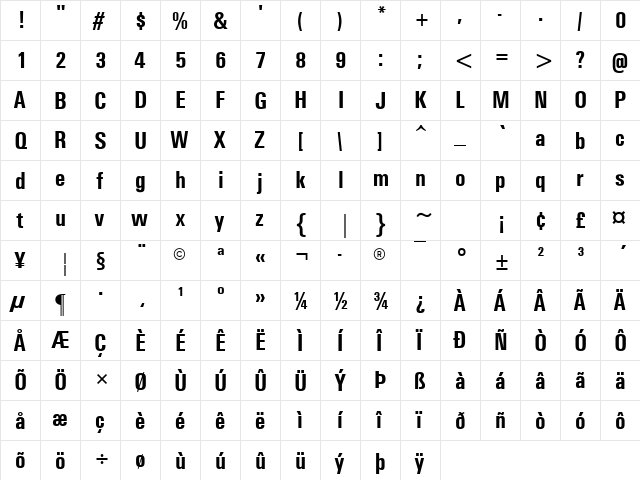
MilkyWay Cond Bold Regular
Design Context for MilkyWay Cond Bold Typeface
MilkyWay Cond Bold offers clean, dependable letterforms without strong stylistic allegiance, making it a practical choice for designers who need flexibility. The heavy weight commands attention and anchors typographic hierarchies. Its narrow stance lets it pack a punch even in space-constrained designs.